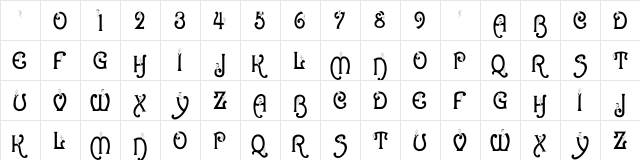
BJF Snowbird Regular
Design Context for BJF Snowbird Typeface
BJF Snowbird is a composed and adaptable typeface that performs quietly and consistently across a wide range of design contexts.